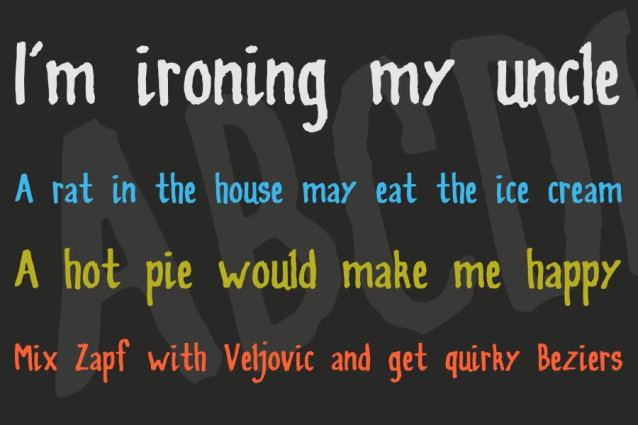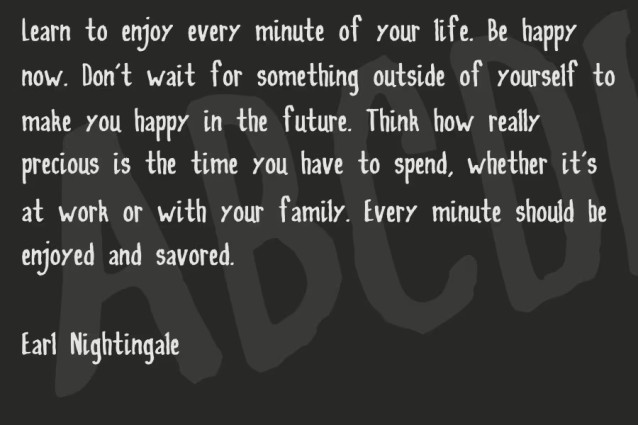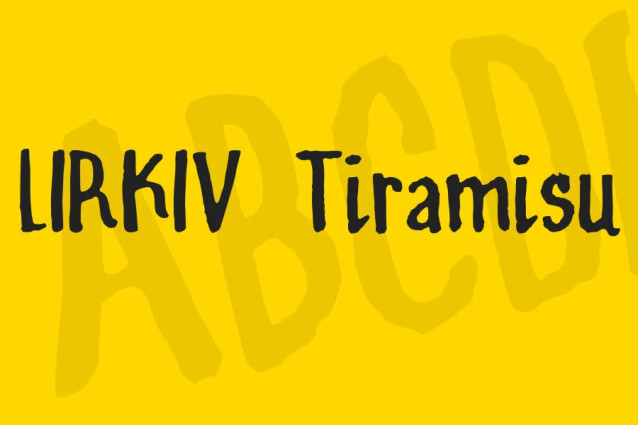
LIRKIV Tiramisu Font
LIRKIV Tiramisu Font, perfectly fit for branding, logo, wedding things, greeting cards, fashion, lookbook, marketing promotion, anytime you want to look fancy elegant but still casual.
Made with a Pilot LETTERING PEN 10